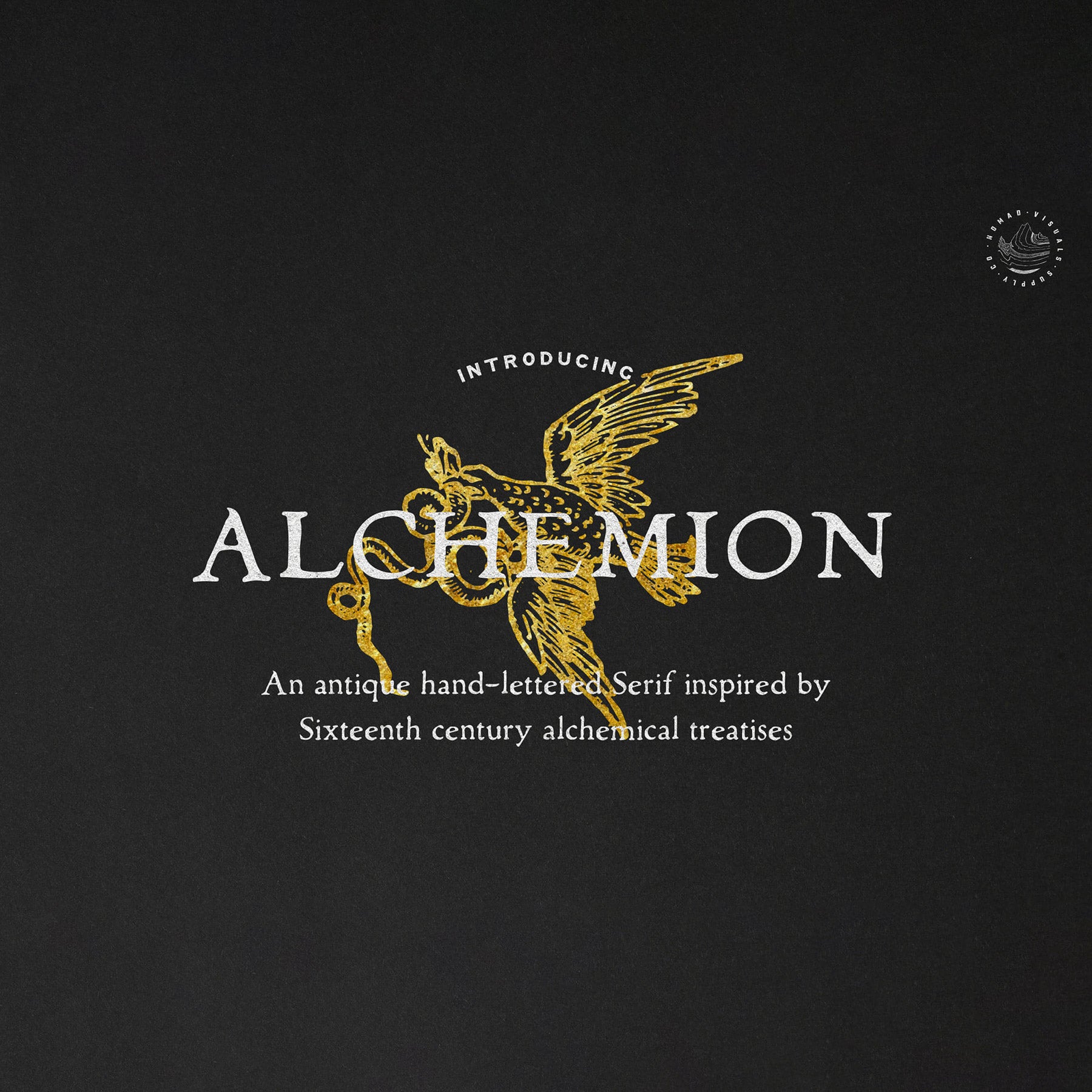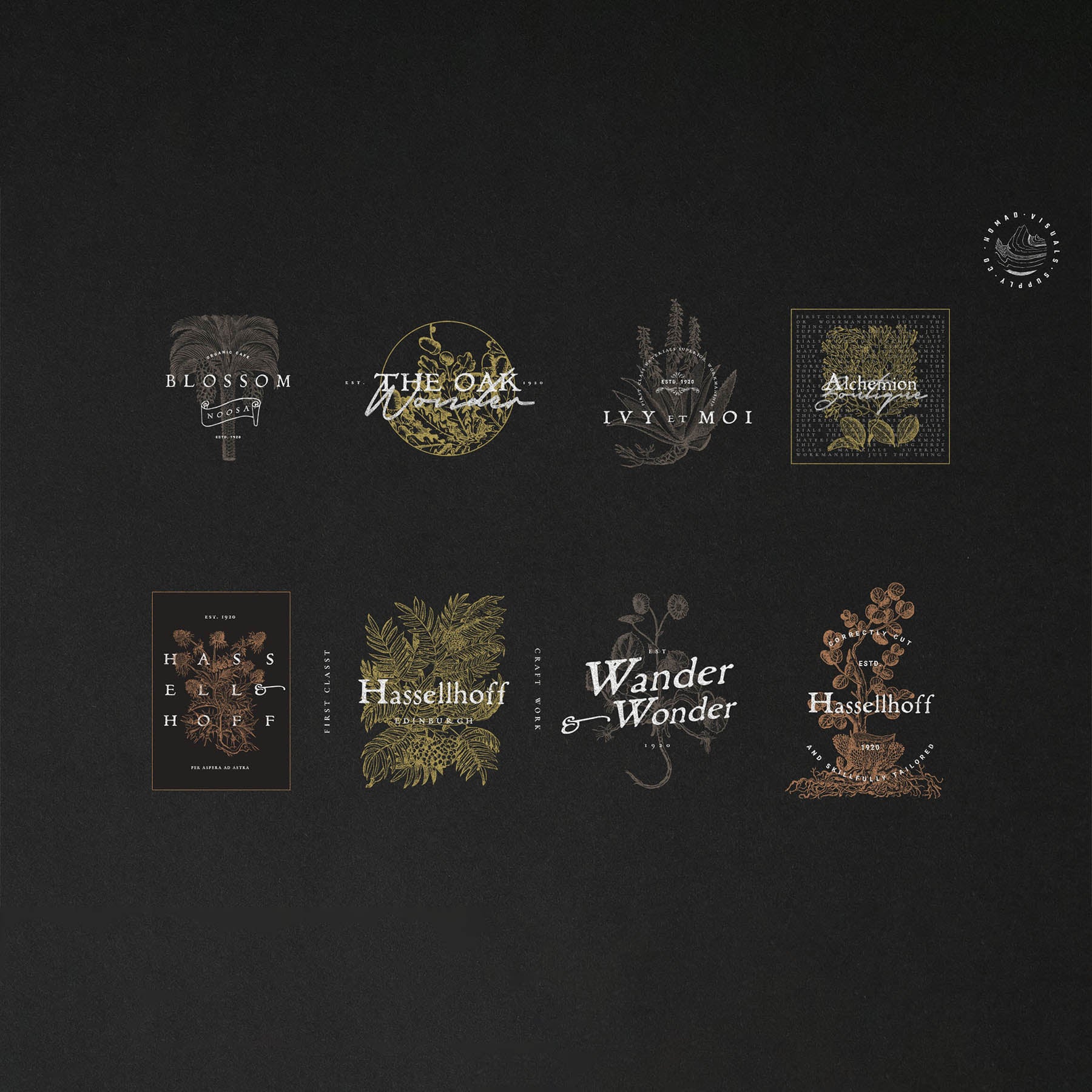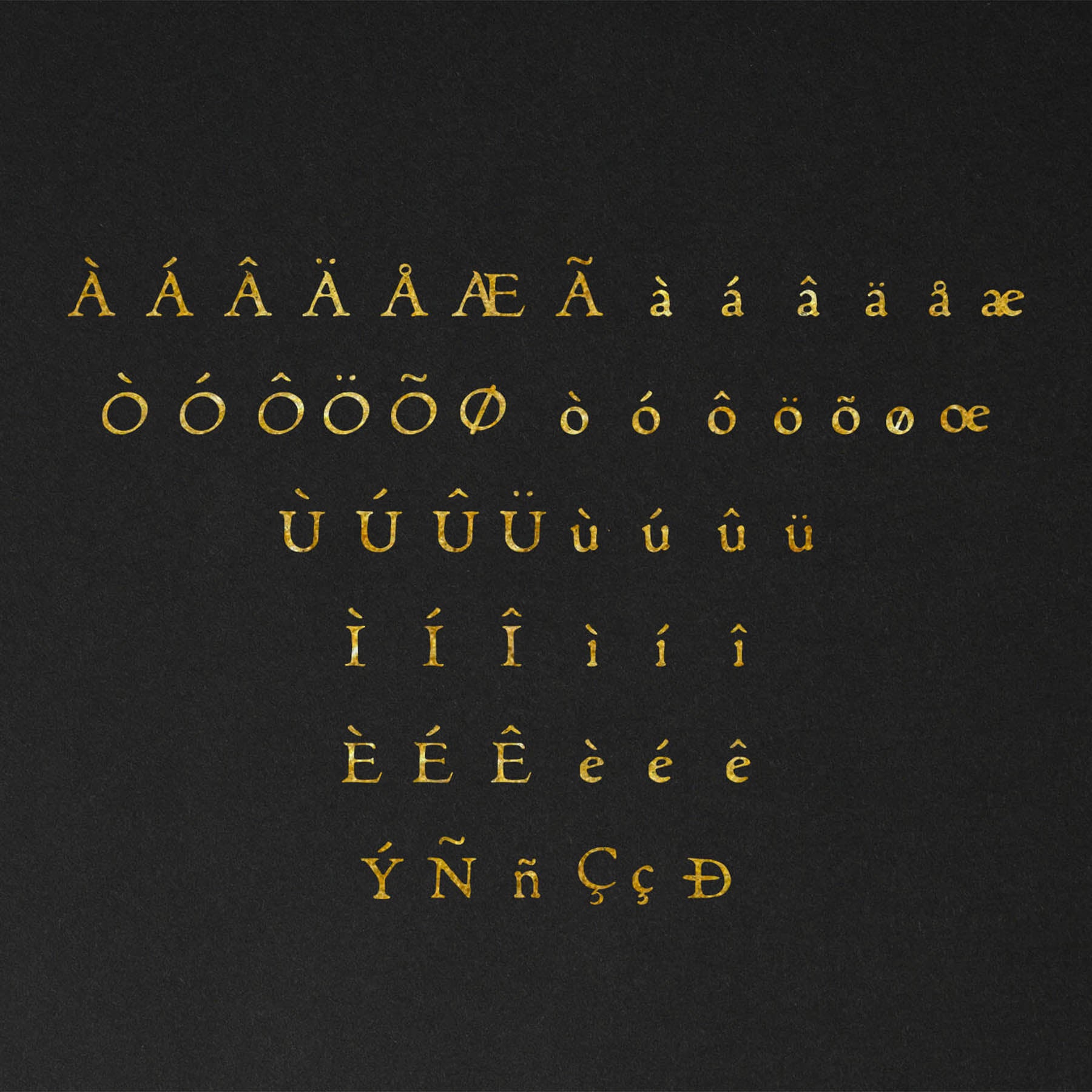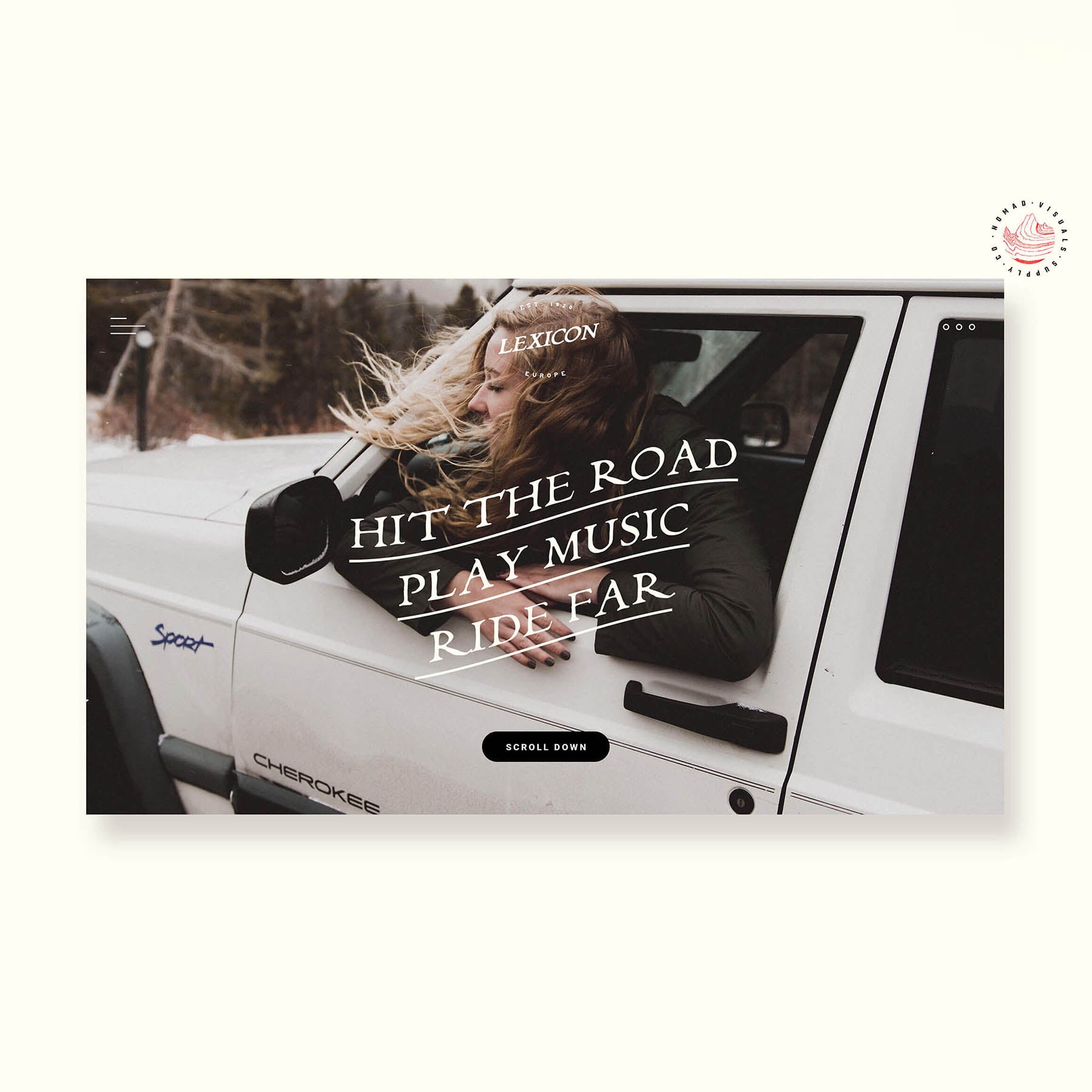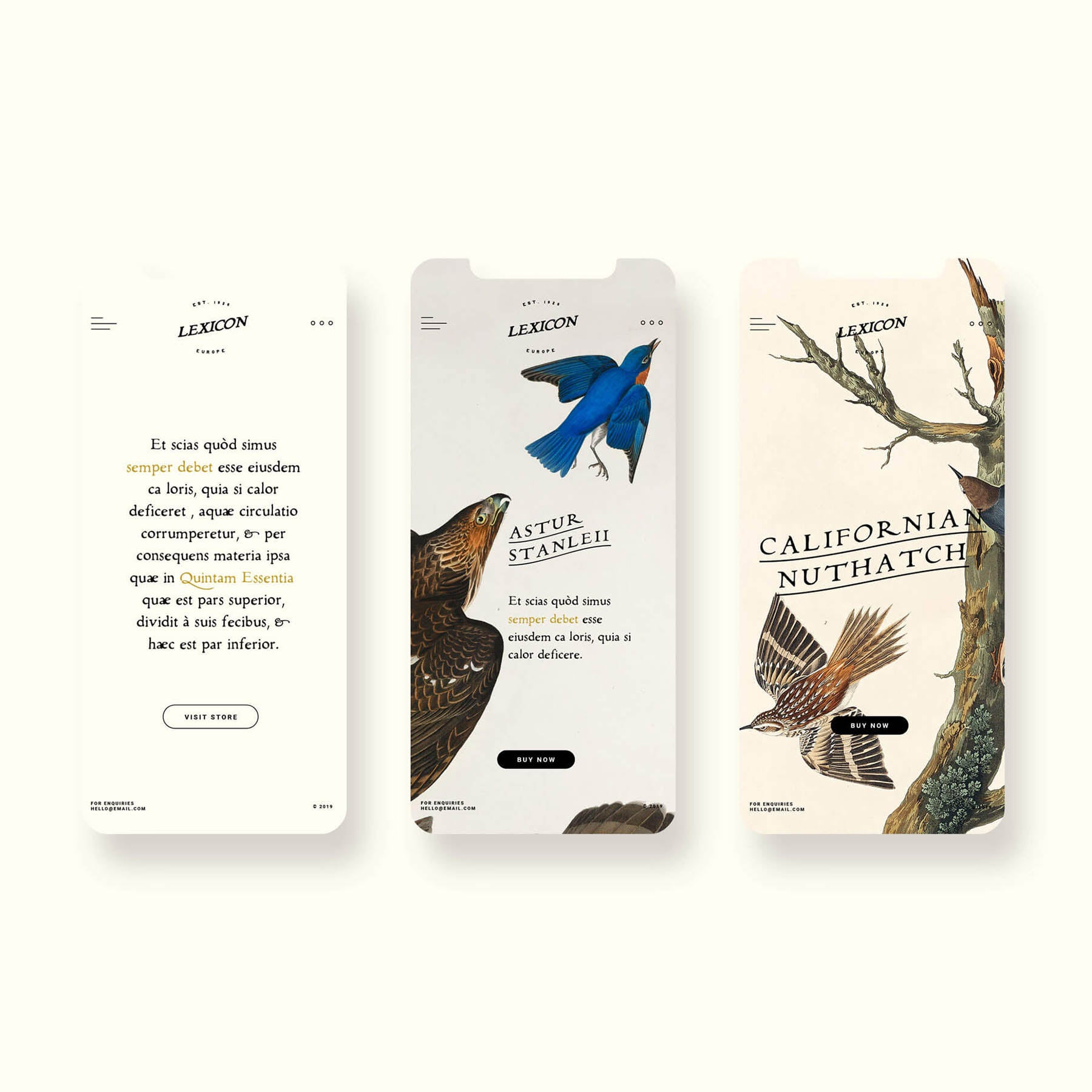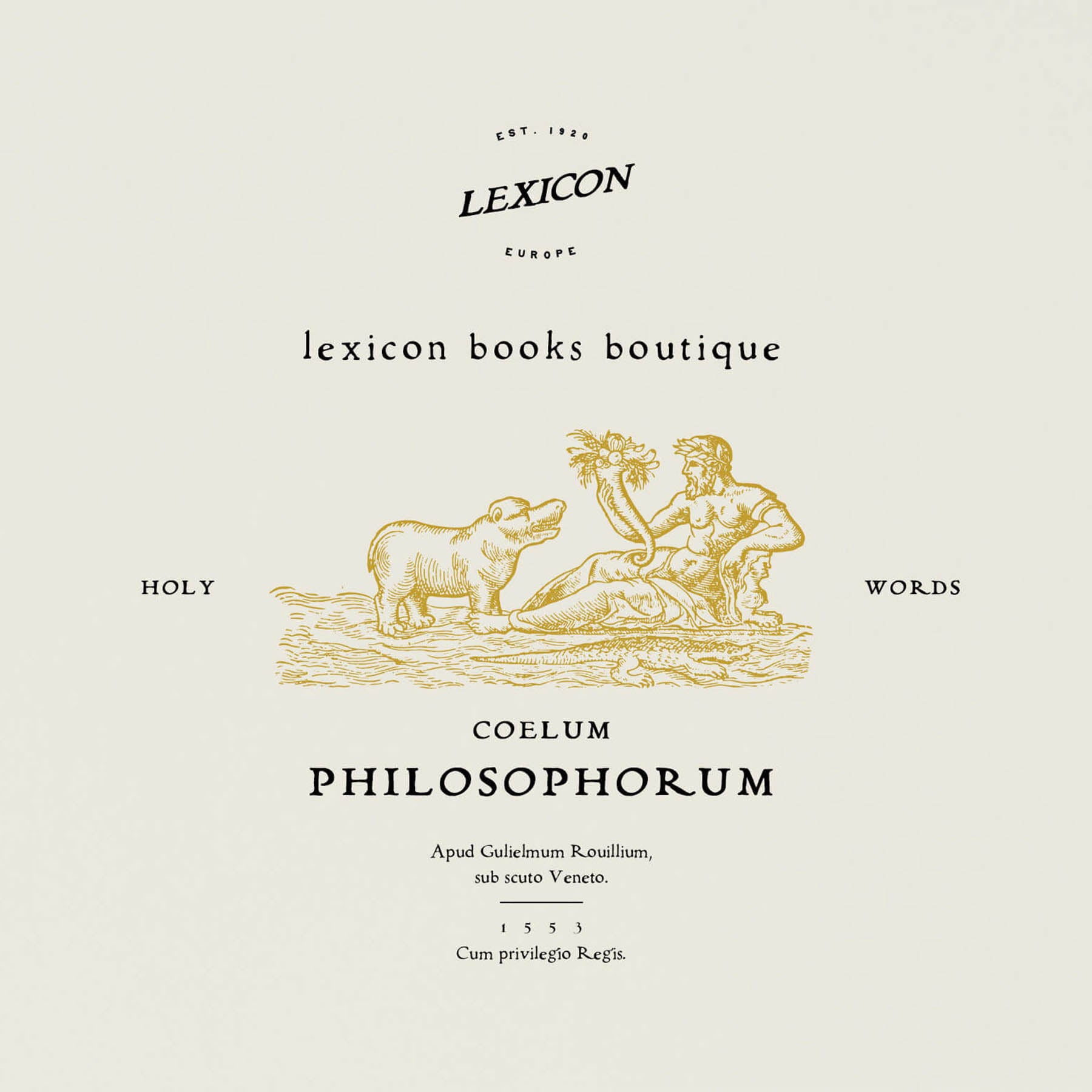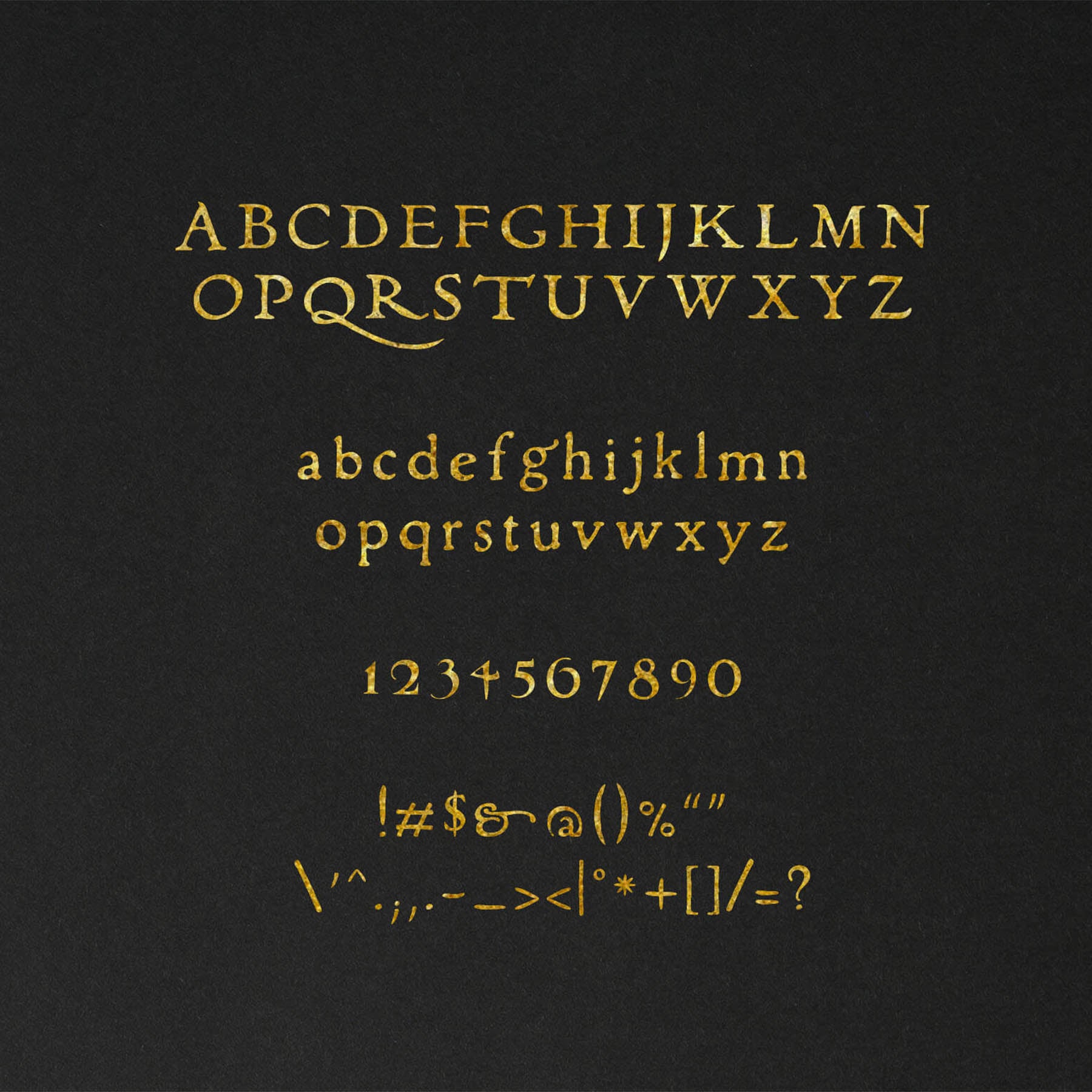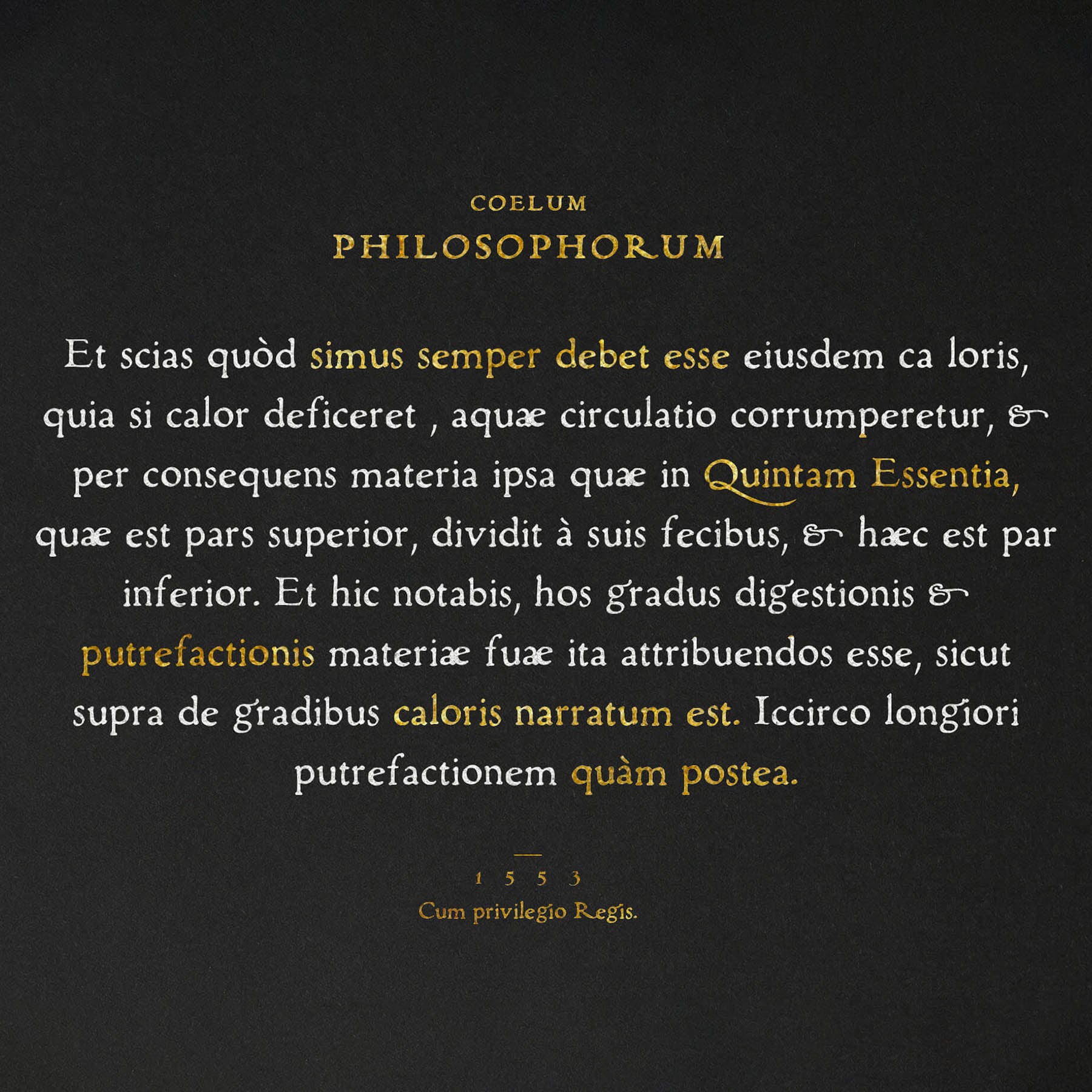
Alchemion Display Serif Font
Step back in time and experience the magic of the Renaissance era with Alchemion, a stunning antique hand-lettered display serif font.
Inspired by Sixteenth century alchemical treatises, this font captures the essence of an era filled with wonder and discovery. With its intricate detailing and beautifully crafted letters, Alchemion brings to life the look and feel of centuries old books.
Each letter is carefully crafted to showcase the intricate curves and lines of traditional hand-lettering, making this font a perfect choice for any project that demands a touch of elegance and sophistication.
Whether you're working on a vintage-inspired logo, an eye-catching poster, or a beautiful book cover, Alchemion will bring your designs to life with its timeless beauty and unmatched charm.
Add a touch of history and mystique to your next project with Alchemion. The font includes numbers, punctuation and special characters for international languages support.